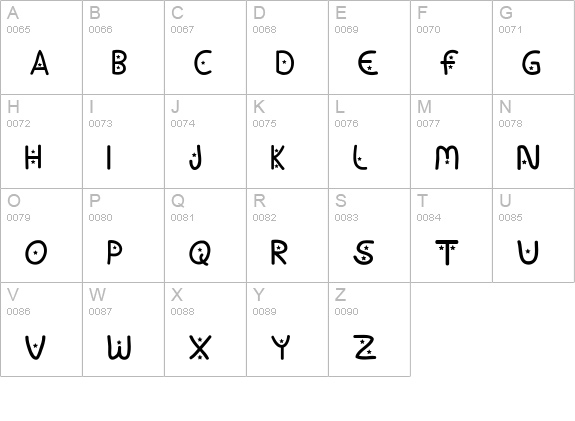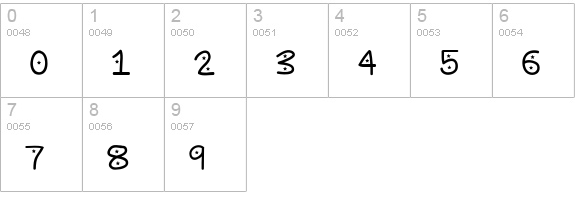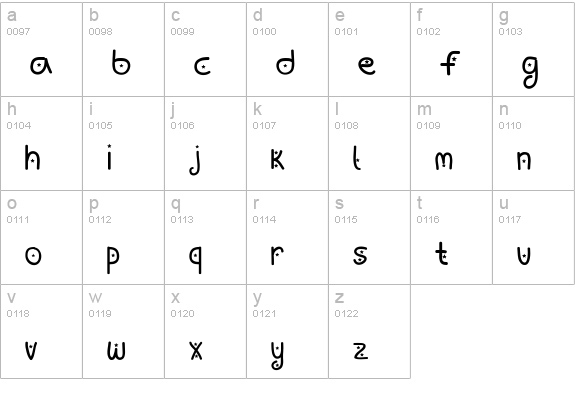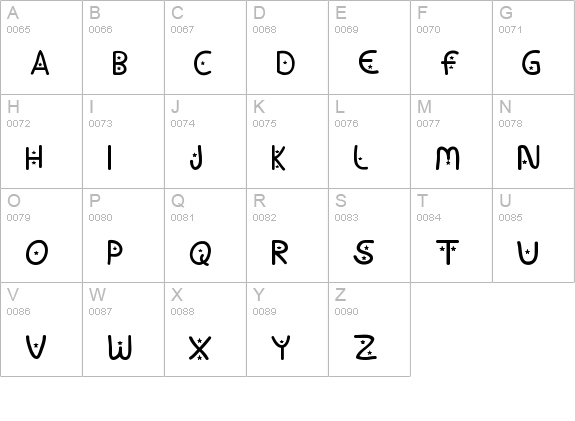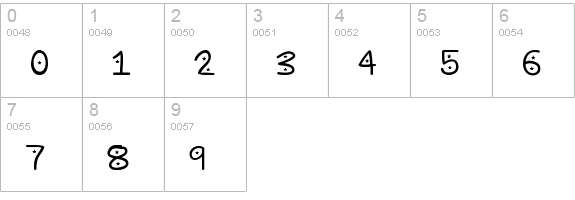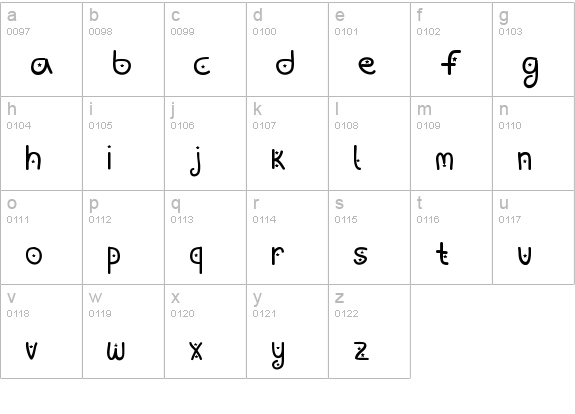
Baby, You're A Star Font Details
Introducing Baby, You're A Star, a captivating font that exudes a whimsical charm and radiates a playful energy. Designed with utmost care and attention to detail, this font is perfect for adding a touch of magic to your design projects. With its elegant curves and delicate strokes, Baby, You're A Star effortlessly captures the essence of innocence and joy. Its versatility shines through in its ability to adapt to a variety of design styles, making it an ideal choice for everything from children's book covers to greeting cards, logos, and more. What makes Baby, You're A Star truly special is that it is freely available to download at FontsMarket.com. Yes, you read that right - this enchanting font can be yours without any cost. Embrace the freedom to bring your creative vision to life without any limitations. Whether you're a professional designer looking to add a touch of whimsy to your projects or a parent wanting to create beautiful custom designs for your little ones, Baby, You're A Star font is the perfect companion. Its delightful charm and expressive nature will make every creation sparkle and stand out from the crowd. So why wait? Embrace the magic and download Baby, You're A Star font today, free of charge, exclusively at FontsMarket.com. Unleash your creativity and let your designs shine like the brightest stars in the sky.